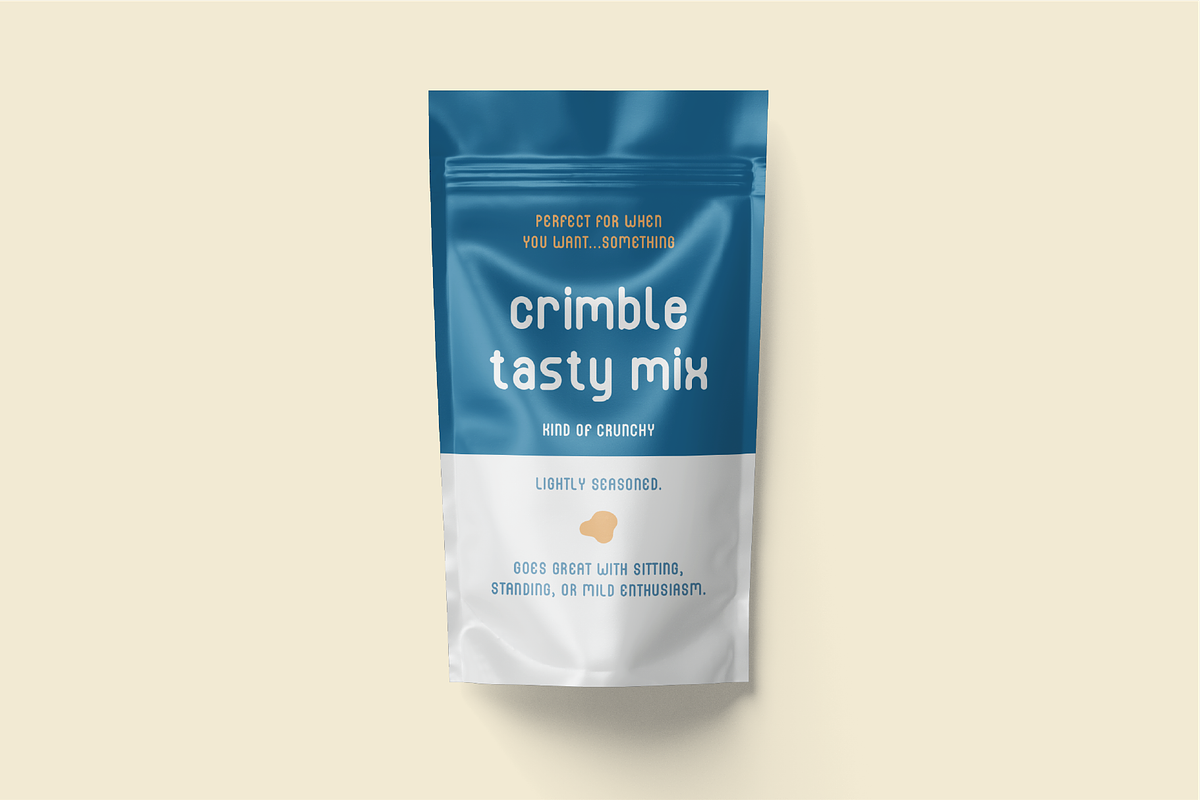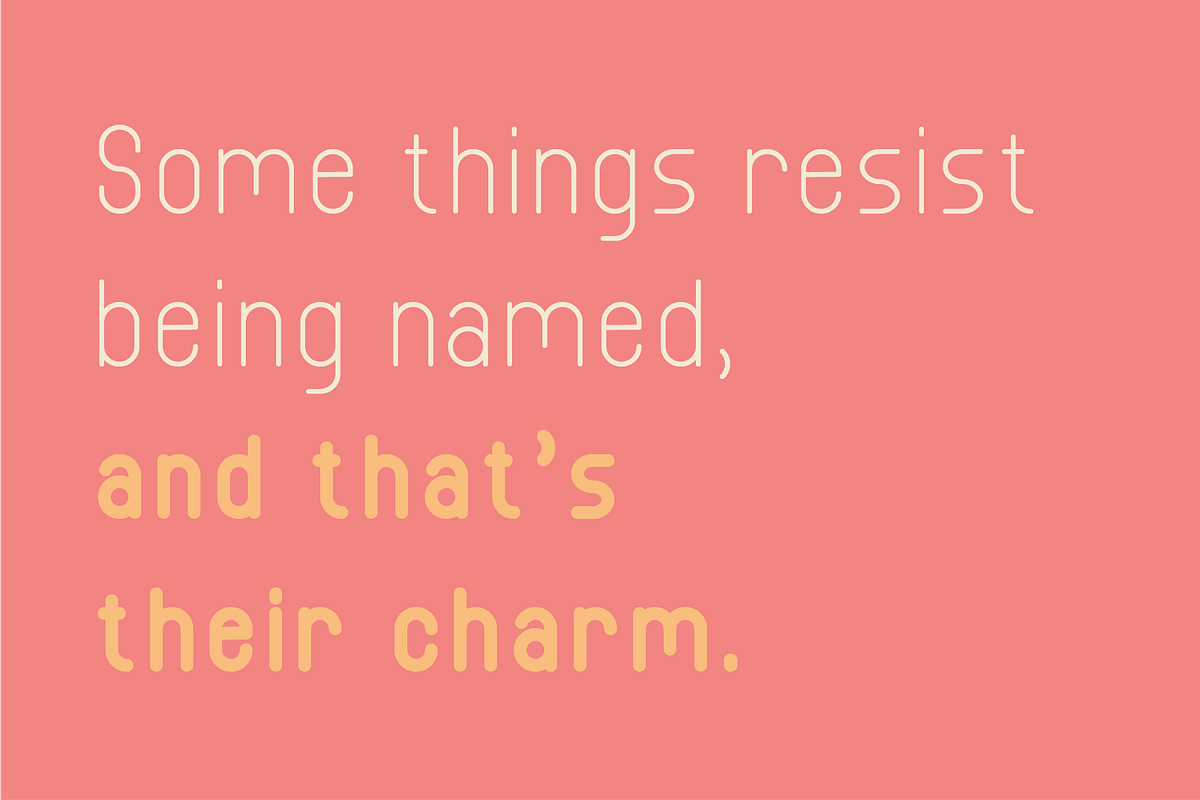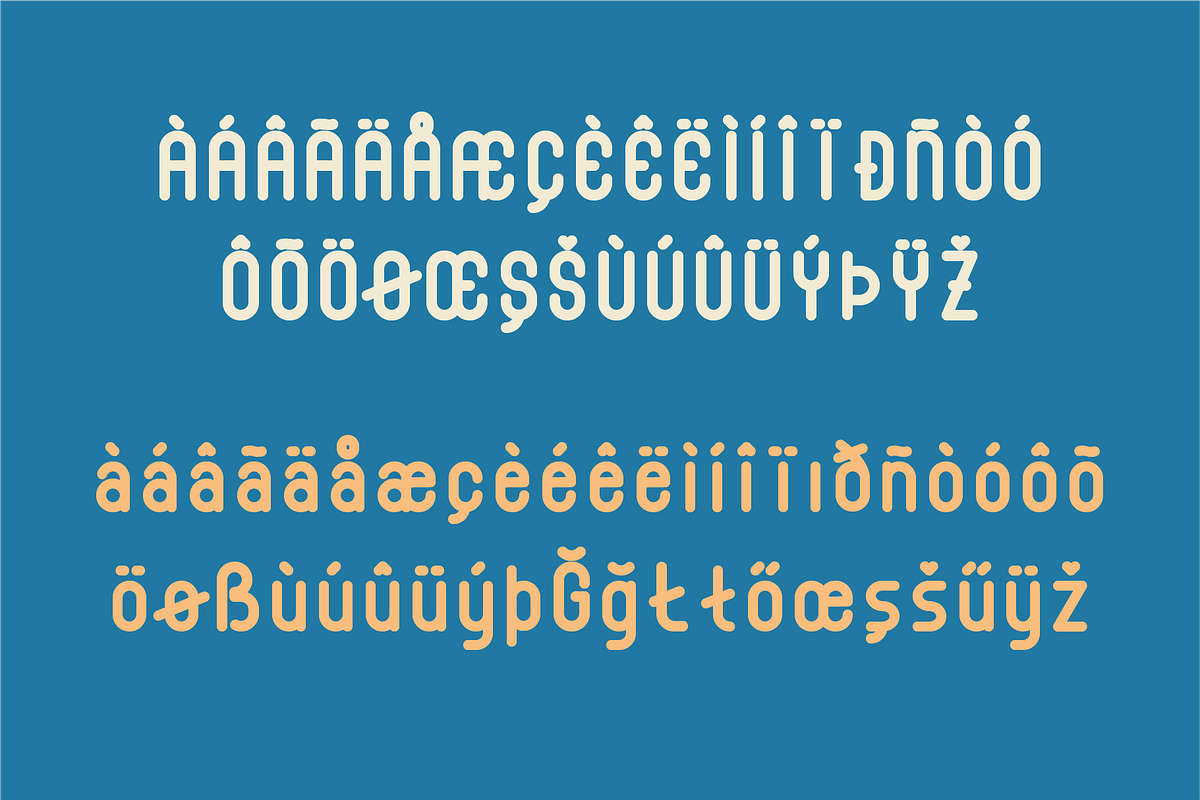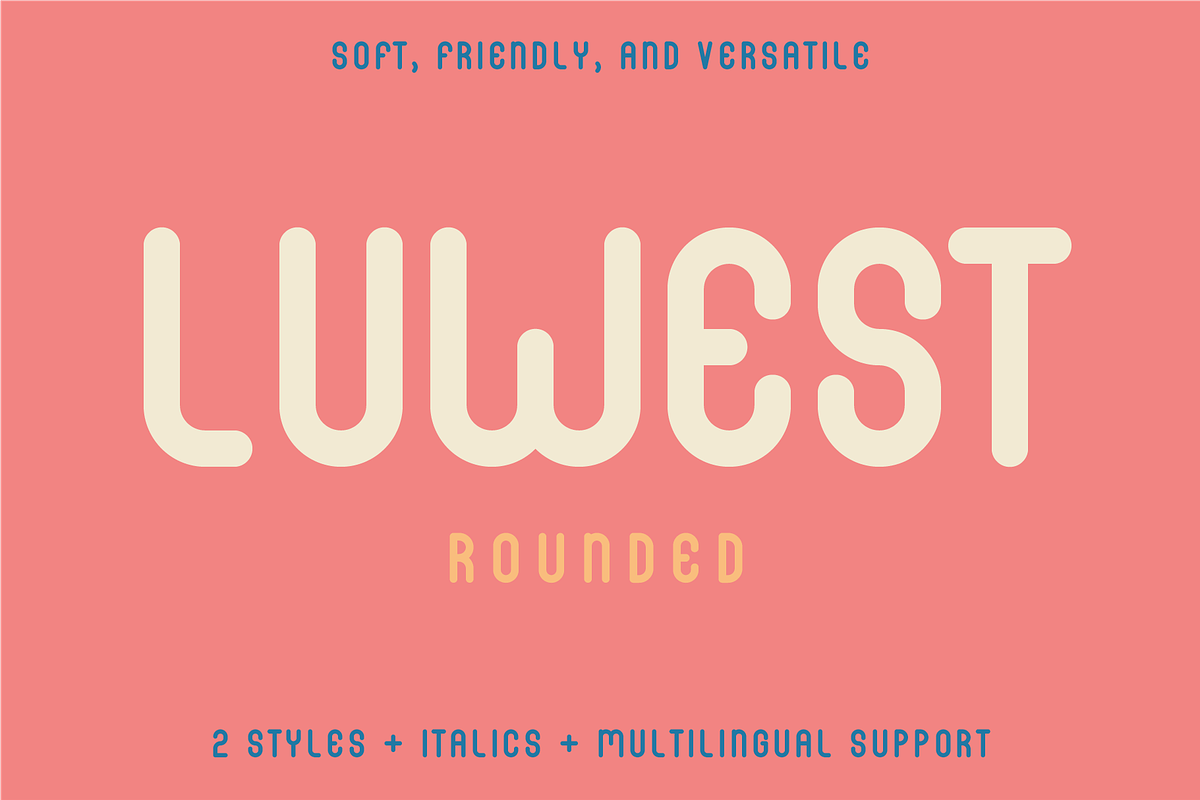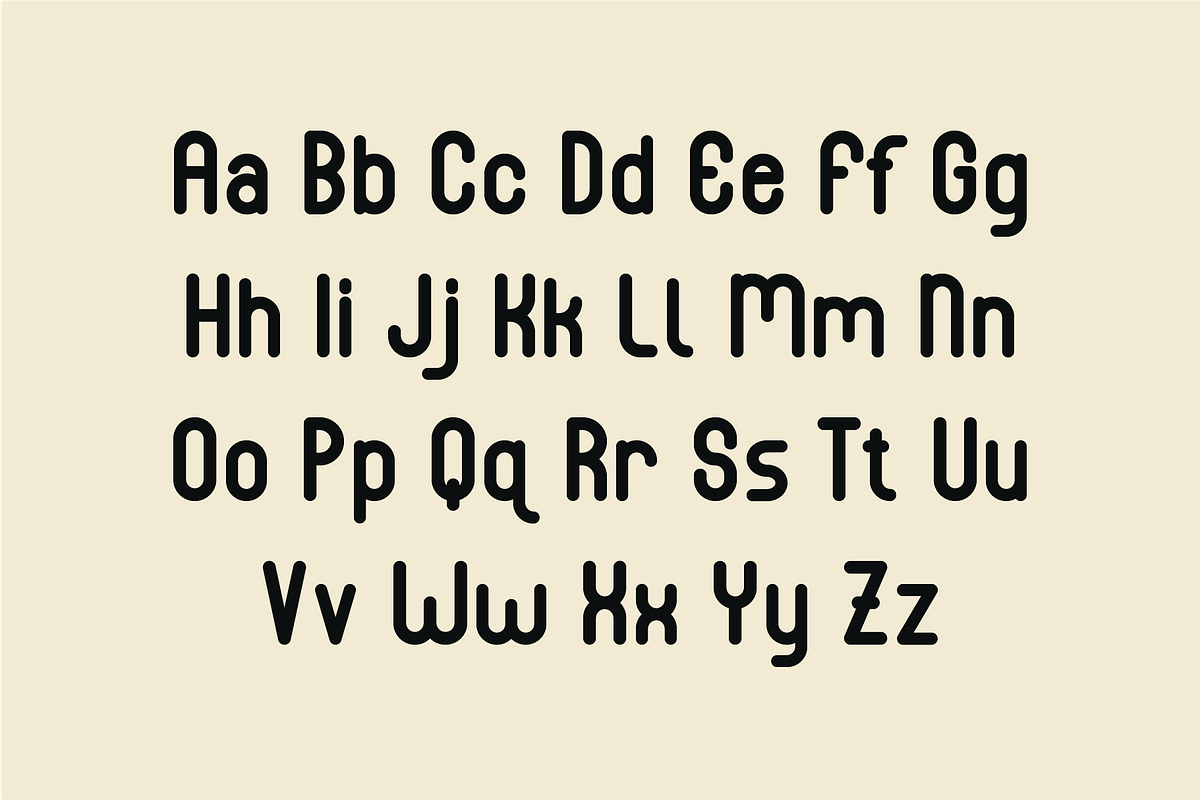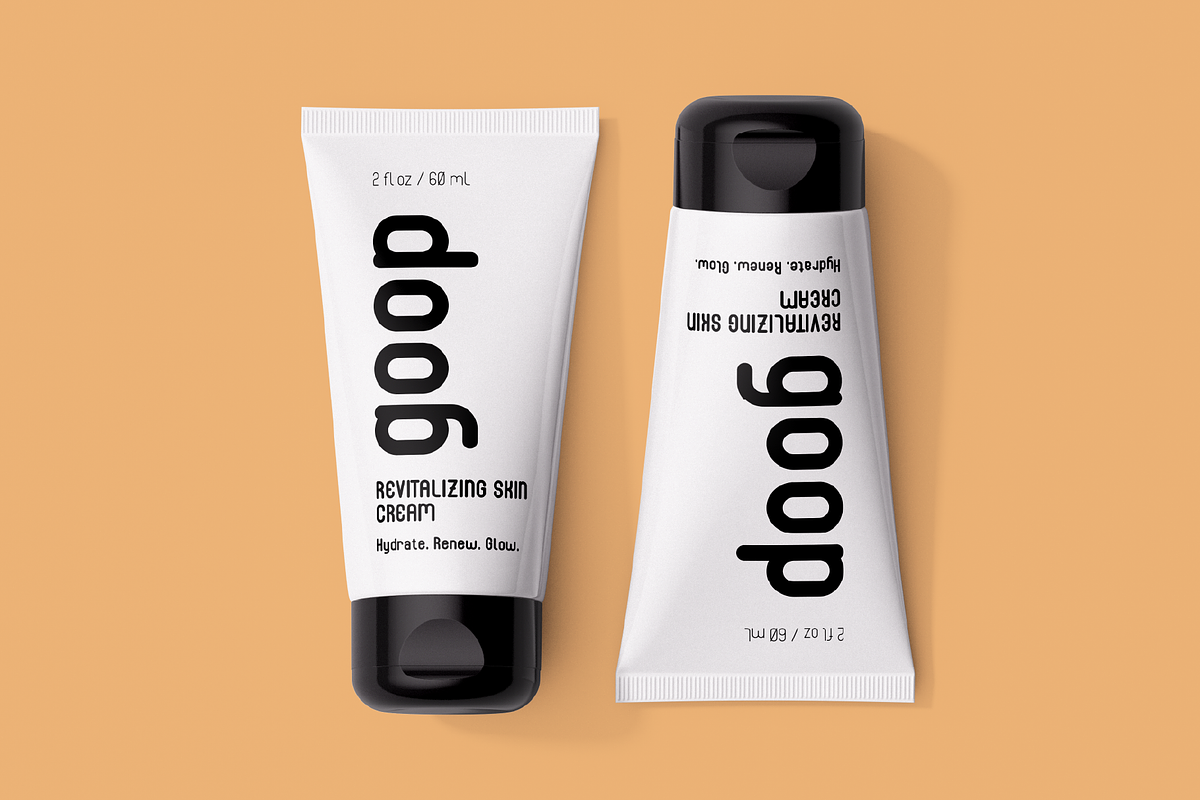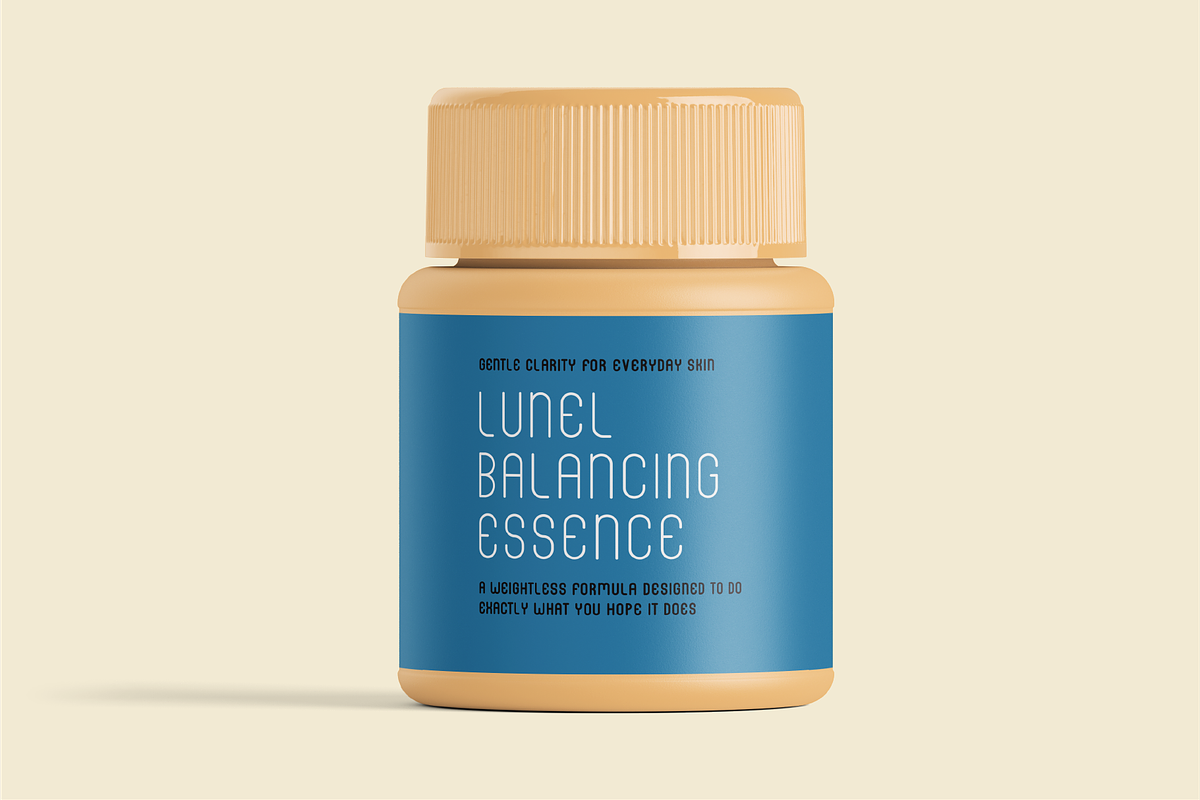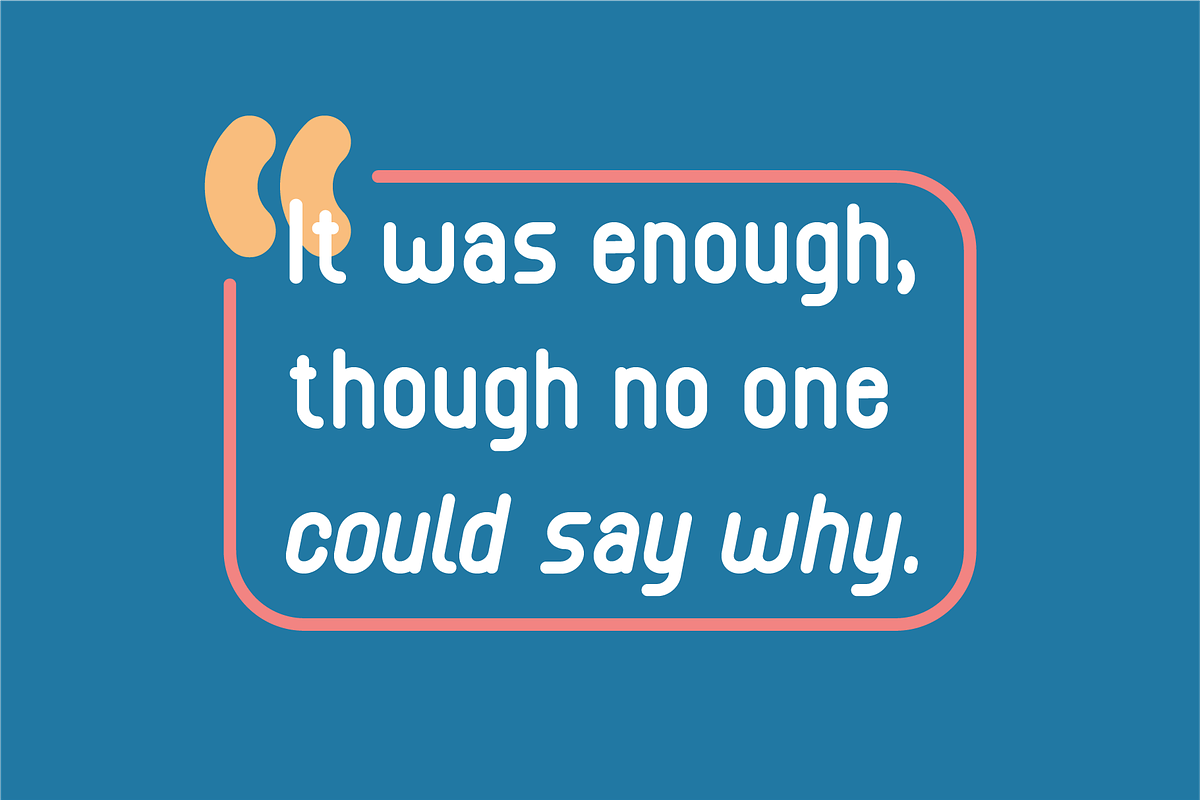
Luwest Rounded
Soft, friendly, and versatile.
Luwest Rounded is a clean, modern rounded font family with two weights and matching italics. Its smooth curves and balanced shapes make it approachable yet refined—ideal for logos, packaging, editorial layouts, posters, presentations, and everyday design use. The Light weight offers an airy contrast to the bolder Regular, giving you flexibility across applications.
Luwest Rounded includes:
- Regular and Light weights
- Italics for both weights
- Comprehensive international character set